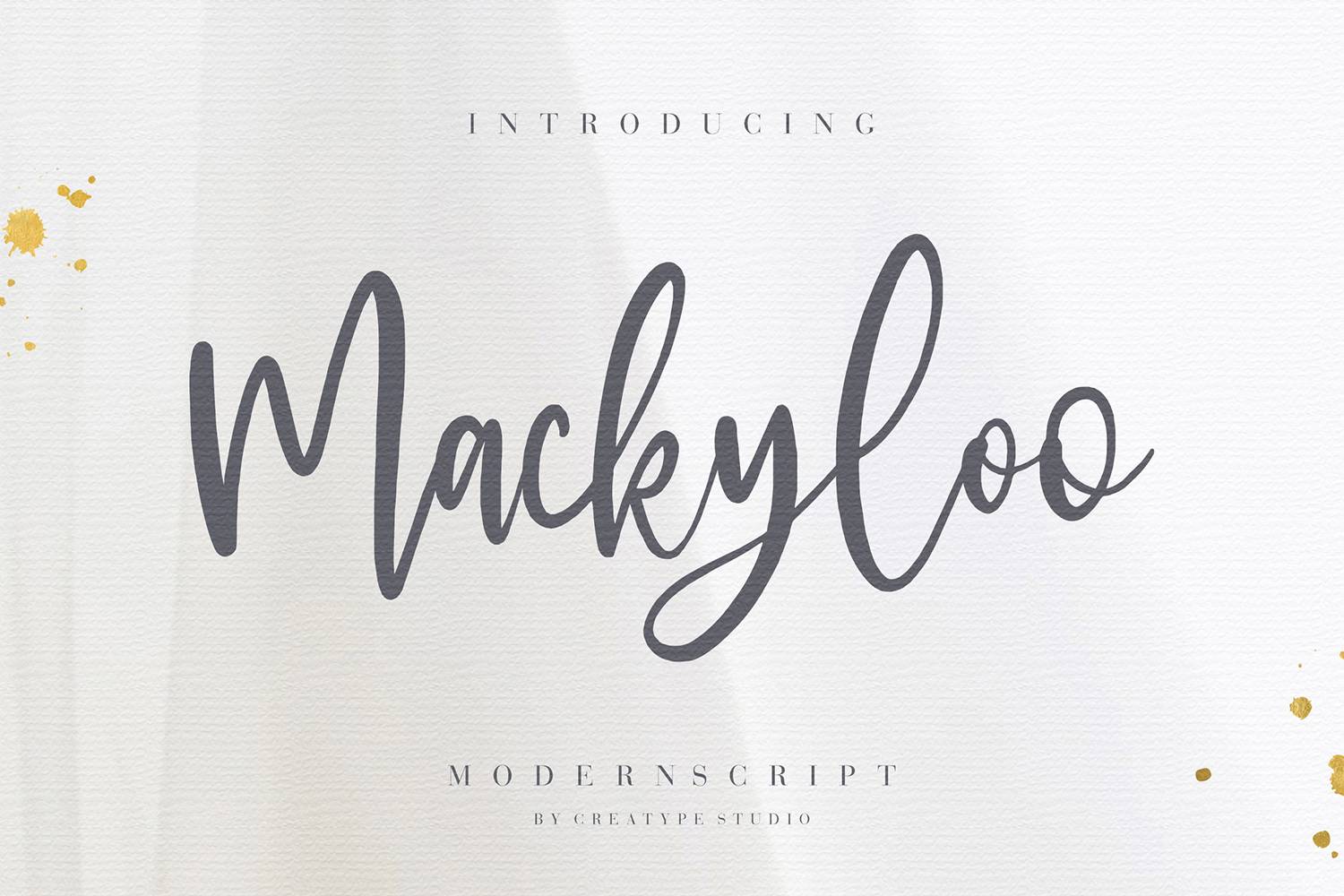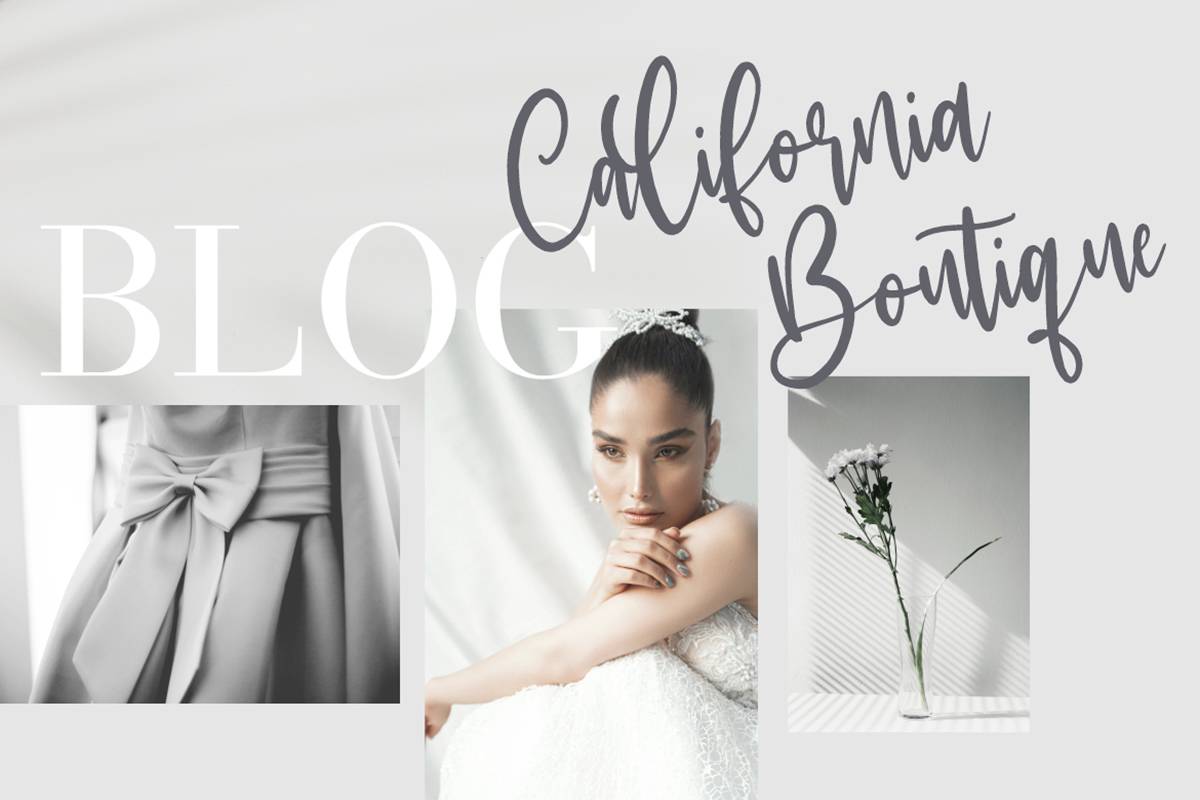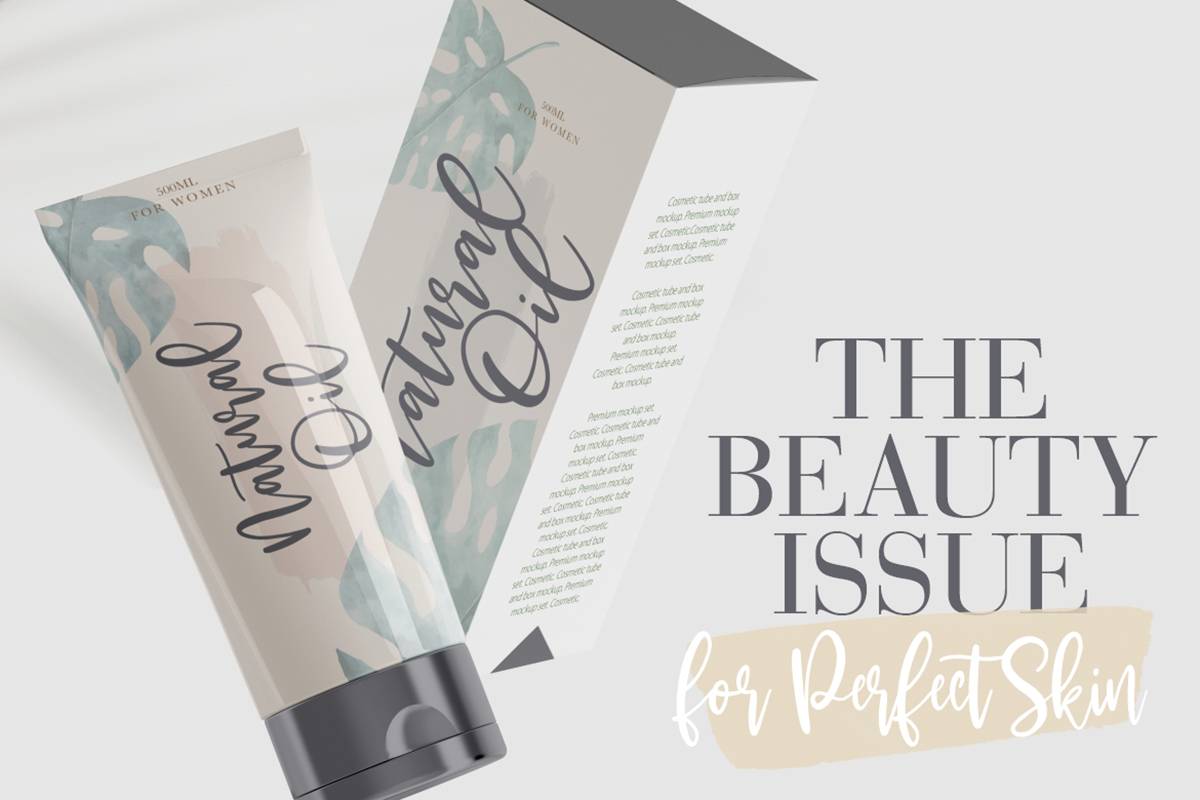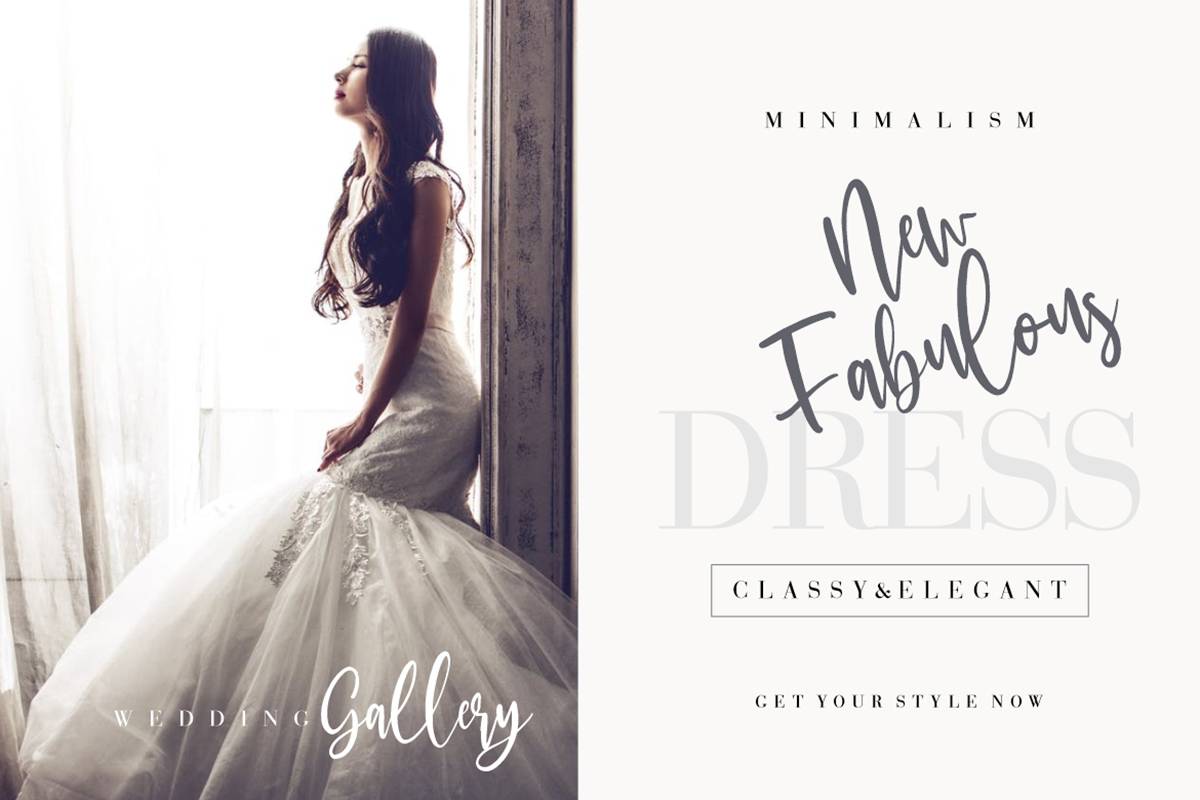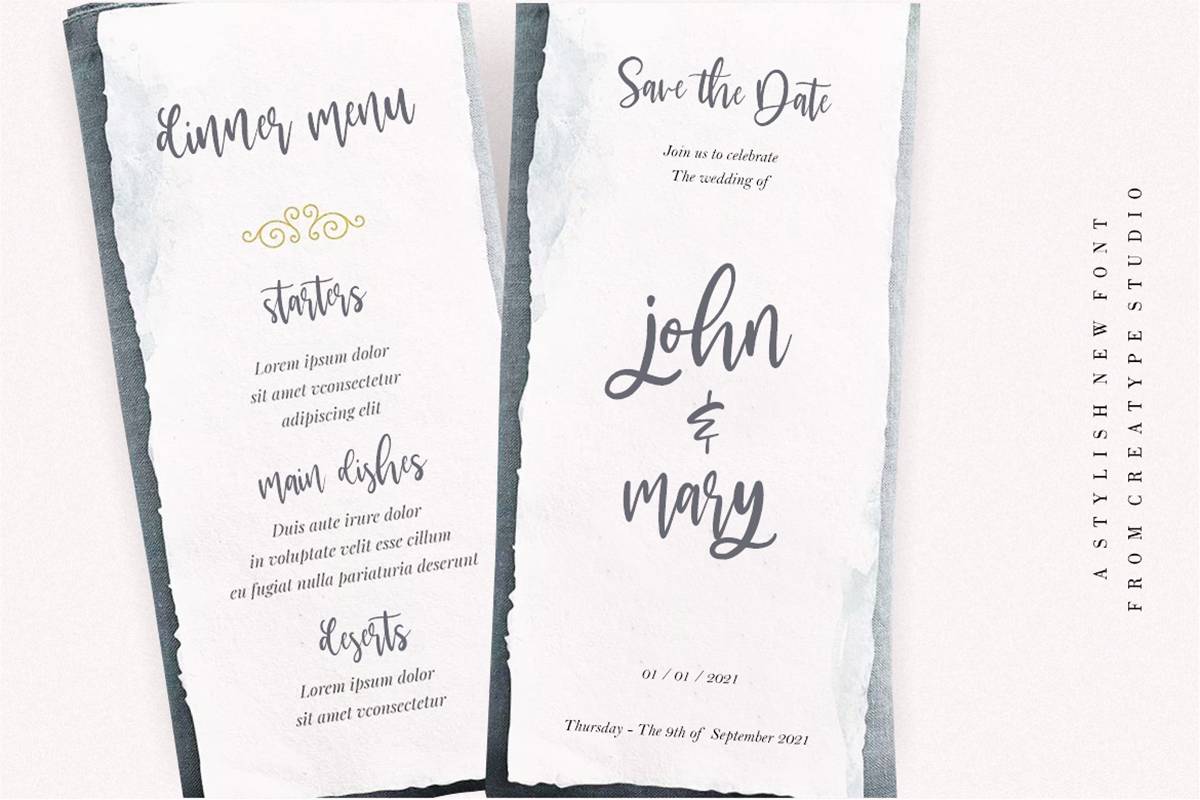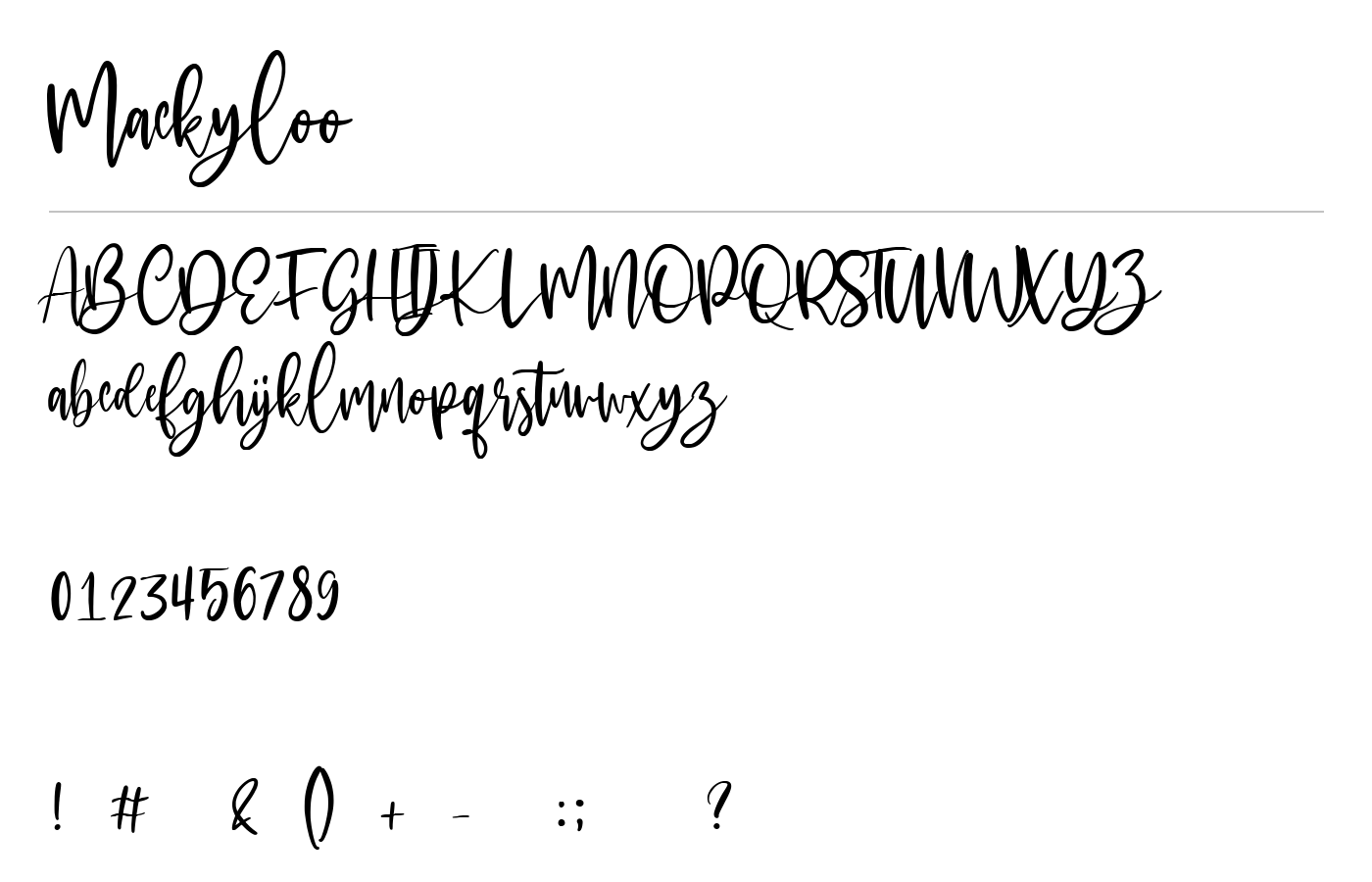
Mackyloo Modern Script is a stylish, hand-lettered script font with a smooth, flowing appearance and playful character shapes. Its slender strokes and casual elegance make it perfect for adding a personal, creative touch to branding, invitations, and social media graphics. This font’s friendly yet refined personality suits fashion, lifestyle, and creative projects where a modern handwritten feel is desired.
Mackyloo Modern Script Font
About Mackyloo Modern Script Font
| Font family | Mackyloo Modern Script Font |